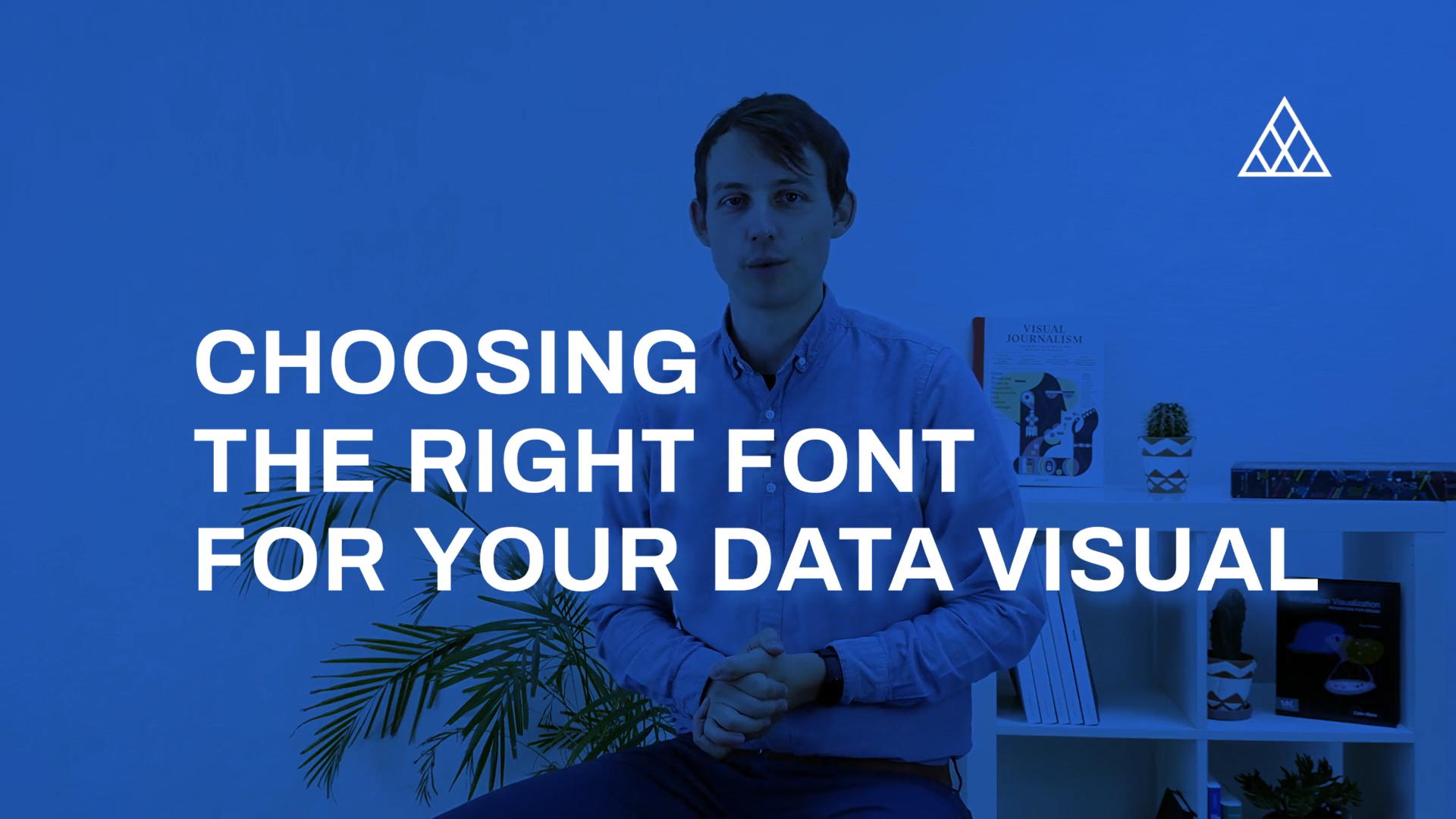
Best Fonts For Data Visualization . When building data visualizations, establishing a clear. Dive into the world we’ve charted, where the best fonts for infographics are your trusted guides through the labyrinth of. Avoid fonts with very exaggerated serifs, as they can make reading difficult. How should the text appear in your data visualizations? The fonts used in charts and tables should enhance readability, convey hierarchy, and maintain consistency with the overall design. With lots of examples, we explain which fonts work best for. To ensure data credibility, it’s best to avoid fonts like comic sans, papyrus, curlz, viner, kristen,. Typography is one of the most effective tools for communicating the meaning of data to users. There are millions of typefaces out there (arial, times new roman, lato,.) belonging to different categories.
Typography is one of the most effective tools for communicating the meaning of data to users. To ensure data credibility, it’s best to avoid fonts like comic sans, papyrus, curlz, viner, kristen,. The fonts used in charts and tables should enhance readability, convey hierarchy, and maintain consistency with the overall design. How should the text appear in your data visualizations? With lots of examples, we explain which fonts work best for. Avoid fonts with very exaggerated serifs, as they can make reading difficult. There are millions of typefaces out there (arial, times new roman, lato,.) belonging to different categories. Dive into the world we’ve charted, where the best fonts for infographics are your trusted guides through the labyrinth of. When building data visualizations, establishing a clear.
Best Fonts For Data Visualization When building data visualizations, establishing a clear. Dive into the world we’ve charted, where the best fonts for infographics are your trusted guides through the labyrinth of. Avoid fonts with very exaggerated serifs, as they can make reading difficult. With lots of examples, we explain which fonts work best for. There are millions of typefaces out there (arial, times new roman, lato,.) belonging to different categories. Typography is one of the most effective tools for communicating the meaning of data to users. When building data visualizations, establishing a clear. To ensure data credibility, it’s best to avoid fonts like comic sans, papyrus, curlz, viner, kristen,. The fonts used in charts and tables should enhance readability, convey hierarchy, and maintain consistency with the overall design. How should the text appear in your data visualizations?
10 Best Fonts for Data Visualization (Expert Picks) Best Fonts For Data Visualization The fonts used in charts and tables should enhance readability, convey hierarchy, and maintain consistency with the overall design. Dive into the world we’ve charted, where the best fonts for infographics are your trusted guides through the labyrinth of. Avoid fonts with very exaggerated serifs, as they can make reading difficult. With lots of examples, we explain which fonts work. Best Fonts For Data Visualization.
10 Best Fonts for Data Visualization Best Fonts For Data Visualization There are millions of typefaces out there (arial, times new roman, lato,.) belonging to different categories. When building data visualizations, establishing a clear. To ensure data credibility, it’s best to avoid fonts like comic sans, papyrus, curlz, viner, kristen,. Avoid fonts with very exaggerated serifs, as they can make reading difficult. How should the text appear in your data visualizations?. Best Fonts For Data Visualization.
data visualization >> variable fonts Kevin King > Typeface Design Best Fonts For Data Visualization Dive into the world we’ve charted, where the best fonts for infographics are your trusted guides through the labyrinth of. Avoid fonts with very exaggerated serifs, as they can make reading difficult. The fonts used in charts and tables should enhance readability, convey hierarchy, and maintain consistency with the overall design. How should the text appear in your data visualizations?. Best Fonts For Data Visualization.
36 Font Styles to Consider When Branding Your Business or Blog Best Fonts For Data Visualization Dive into the world we’ve charted, where the best fonts for infographics are your trusted guides through the labyrinth of. How should the text appear in your data visualizations? With lots of examples, we explain which fonts work best for. To ensure data credibility, it’s best to avoid fonts like comic sans, papyrus, curlz, viner, kristen,. There are millions of. Best Fonts For Data Visualization.
Choosing Fonts for Your Data Visualization by Tiffany France Best Fonts For Data Visualization Dive into the world we’ve charted, where the best fonts for infographics are your trusted guides through the labyrinth of. The fonts used in charts and tables should enhance readability, convey hierarchy, and maintain consistency with the overall design. There are millions of typefaces out there (arial, times new roman, lato,.) belonging to different categories. How should the text appear. Best Fonts For Data Visualization.
Choosing Fonts for Your Data Visualization by Tiffany France Best Fonts For Data Visualization How should the text appear in your data visualizations? To ensure data credibility, it’s best to avoid fonts like comic sans, papyrus, curlz, viner, kristen,. With lots of examples, we explain which fonts work best for. Typography is one of the most effective tools for communicating the meaning of data to users. Dive into the world we’ve charted, where the. Best Fonts For Data Visualization.
Yellowfin BI Language, Fonts and Typography Best Fonts For Data Visualization To ensure data credibility, it’s best to avoid fonts like comic sans, papyrus, curlz, viner, kristen,. How should the text appear in your data visualizations? Typography is one of the most effective tools for communicating the meaning of data to users. Dive into the world we’ve charted, where the best fonts for infographics are your trusted guides through the labyrinth. Best Fonts For Data Visualization.
On Learning Data Visualization Font Standardization Across Platforms Best Fonts For Data Visualization Avoid fonts with very exaggerated serifs, as they can make reading difficult. How should the text appear in your data visualizations? There are millions of typefaces out there (arial, times new roman, lato,.) belonging to different categories. With lots of examples, we explain which fonts work best for. Dive into the world we’ve charted, where the best fonts for infographics. Best Fonts For Data Visualization.